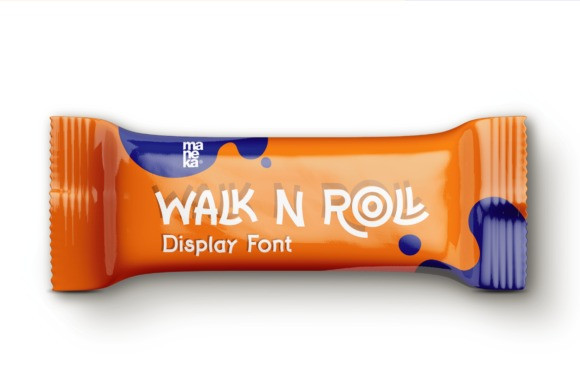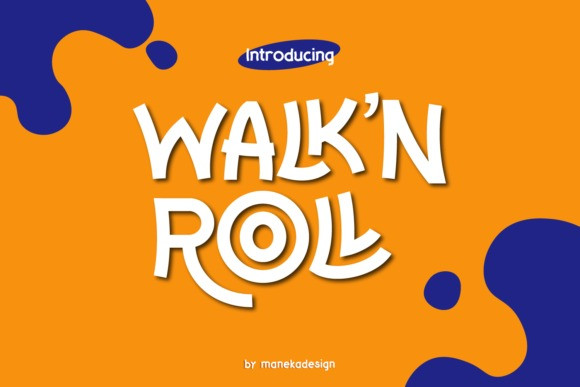
Walk N Roll Font
Walk N Roll Font is a cool, playful and fun display font. Retro and joyful, this font will take you to your favorite childhood memories in an instant.